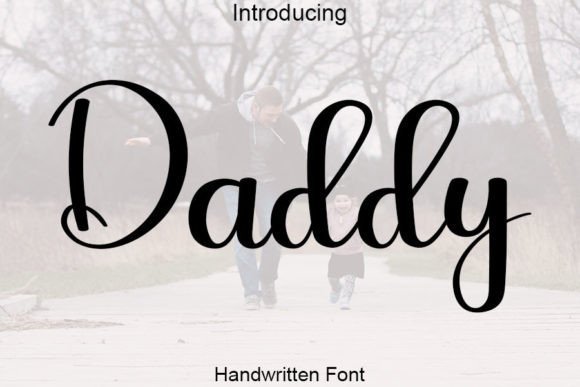
Discover the Timeless Charm of Daddy Font
Have you ever found yourself scrolling through a design blog or social media feed, stopping at a single image that sparks an idea and sets your creative wheels in motion? For many designers, that moment is the start of a new project, and the right font can be the key to bringing it to life. That’s where Daddy Font comes in – a beautiful, elegant handwritten font that adds a touch of sophistication to any design.
Daddy Font is more than just a font; it’s a way to express yourself and tell a story through your designs. With its incredibly distinct and timeless style, it’s perfect for creating spectacular designs that leave a lasting impression. Whether you’re a seasoned designer or just starting out, Daddy Font is a valuable addition to your toolkit, offering endless possibilities for creativity and self-expression.
Daddy Font Key Features
- Font Styles: Daddy Font comes in 5 different styles – Regular, Italic, Bold, Bold Italic, and Outline. Each style offers a unique and playful twist on the original font.
- Character Count: The font contains 330 characters, including uppercase and lowercase letters, numbers, and punctuation marks.
- Unique Characteristics: Daddy Font’s unique characteristics include its bold and playful design, making it perfect for use in logos, branding, and advertising materials.
Daddy Font Review
Overall, I’d say Daddy Font is a decent addition to any web designer’s toolkit. The ✨ typography is clean and modern, with a range of styles that are sure to appeal to users looking for a friendly, approachable feel.
- ✨ The font’s friendly, approachable feel makes it perfect for use in blog posts, social media, or any other content where you want to engage with your audience.
- ✨ The font’s versatility means it works well in a variety of contexts, from headlines to body text.
- ✨ The font is highly customizable, allowing you to tweak the style to suit your specific needs.
- ⚠️ While the font is highly customizable, some users may find it a bit too flexible, making it difficult to achieve a cohesive look.
- ⚠️ The font may not be suitable for use in formal or professional contexts, where a more traditional or conservative font is preferred.
I’d give Daddy Font 3.5 out of 5 stars. It’s a solid choice for designers looking for a friendly, modern font, but it may not be the best fit for every project. With a bit of tweaking and experimentation, however, you can achieve some really great results with this font.
Daddy Font is commonly used for creating logos, branding materials, and promotional graphics. It’s also great for adding a touch of personality to social media posts, presentations, and documents. Some popular use cases include:
- Logo design
- Branding materials (business cards, letterheads, etc.)
- Promotional graphics (posters, flyers, etc.)
- Social media posts
- Presentations